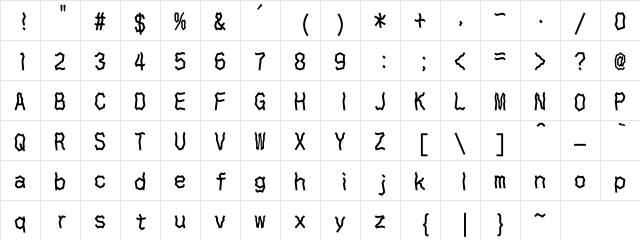
DFDouDouW5U-B5 Regular Font Preview
DFDouDouW5U-B5 Regular
Design Context for DFDouDouW5U-B5 Typeface
DFDouDouW5U-B5 takes a measured approach to typography — its balanced proportions and neutral character make it a reliable workhorse for both digital and print work.